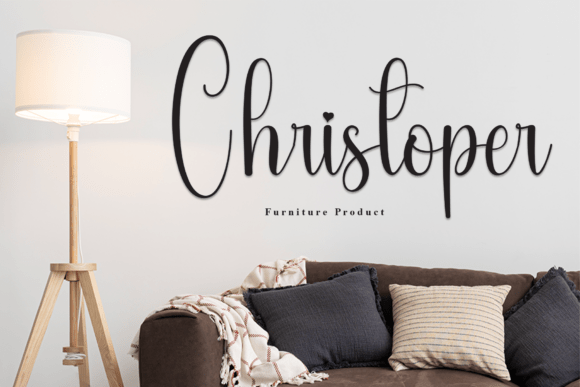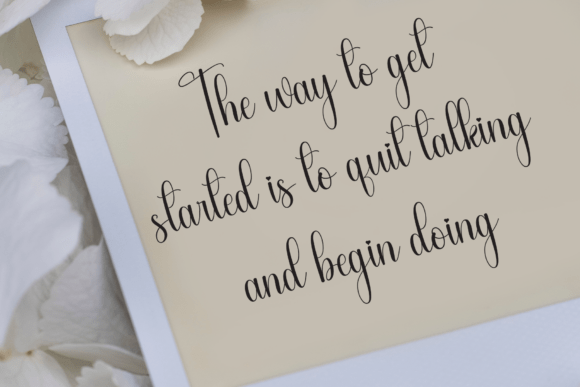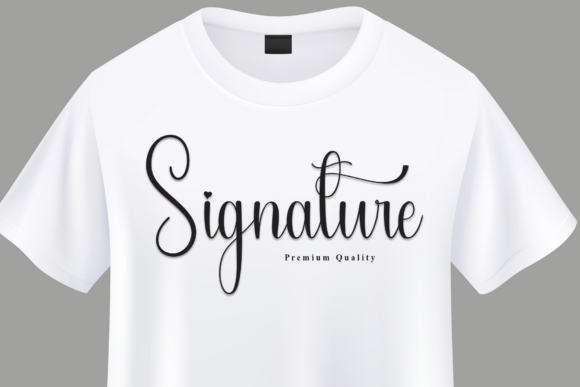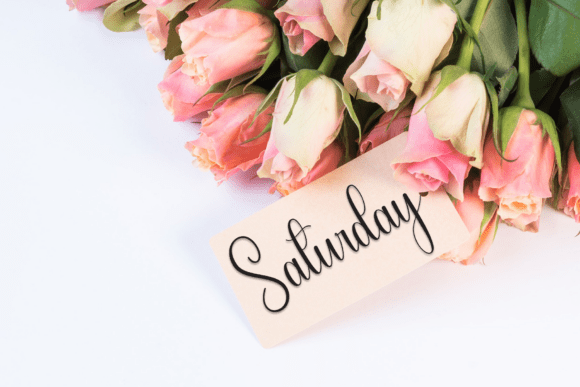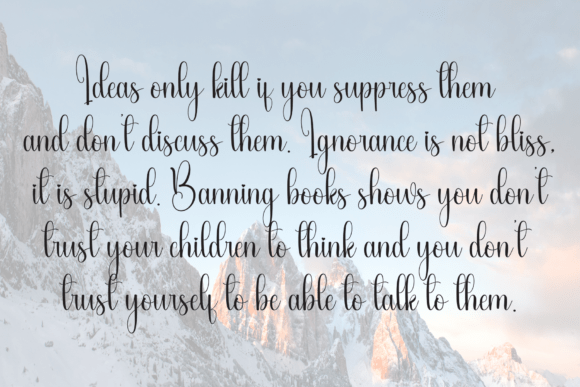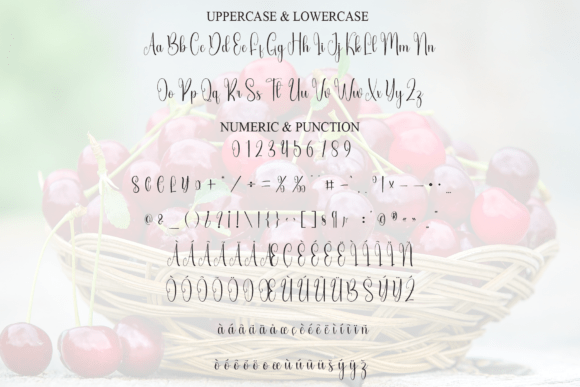
Introducing Cherry Font: Elevate Your Designs with Elegance and Fluidity
Are you looking for a font that exudes sophistication, charm, and a touch of modernity? Look no further than Cherry Font, a stylish handwritten script font that is sure to elevate your designs to the next level. With its smooth, flowing strokes and natural feel, Cherry Font is perfect for a wide range of creative projects, from branding and invitations to digital and print materials.
The Characteristics of Cherry Font
Cherry Font is a beautifully crafted handwritten script font that boasts a range of characteristics that set it apart from other typefaces. Its smooth, flowing strokes create a sense of fluidity and movement, giving your designs a dynamic and energetic feel. The font’s elegant and sophisticated lines make it perfect for projects that require a touch of luxury and refinement.
One of the standout features of Cherry Font is its graceful balance of charm and modernity. This font is not just a pretty face; it’s also highly versatile and can be used in a variety of design contexts. Whether you’re creating a brand identity, designing an invitation, or crafting a social media graphic, Cherry Font is sure to add a personal, artistic touch to your work.
What Makes Cherry Font So Versatile?
So, what makes Cherry Font so versatile? For starters, its handwritten script style gives it a friendly, approachable feel that’s perfect for brands and businesses looking to connect with their audience on a more personal level. At the same time, the font’s elegant lines and sophisticated strokes ensure that it remains suitable for more formal and professional applications.
Another factor that contributes to Cherry Font’s versatility is its wide range of uses. This font can be used for:
- Branding and logo design: Create a lasting impression with a custom logo that showcases your brand’s personality and style.
- Invitations and event design: Make your invitations and event materials stand out with a beautiful, handcrafted font.
- Digital and print materials: Use Cherry Font to add a touch of elegance and sophistication to your website, social media graphics, brochures, and more.
- Packaging and product design: Add a personal touch to your product packaging and make it stand out on store shelves.
Tips for Using Cherry Font Effectively
Now that you know a little bit more about Cherry Font, here are some tips for using it effectively in your designs:
- Pair it with contrasting fonts: Cherry Font works beautifully with bold, sans-serif fonts that provide a nice contrast to its elegant lines.
- Experiment with colors: Try pairing Cherry Font with a range of colors to find the perfect combination for your design.
- Pay attention to spacing: Make sure to leave enough space between lines and words to ensure that your text is easy to read.
- Use it sparingly: While Cherry Font is beautiful, it can be overwhelming if overused. Try using it as a headline or title font, and pairing it with a simpler font for body text.
In conclusion, Cherry Font is a stylish and sophisticated handwritten script font that’s perfect for designers and crafters looking to add a touch of elegance and fluidity to their work. With its smooth, flowing strokes and natural feel, this font is sure to elevate your designs and make them stand out from the crowd. So why wait? Try Cherry Font today and see the difference it can make in your designs!